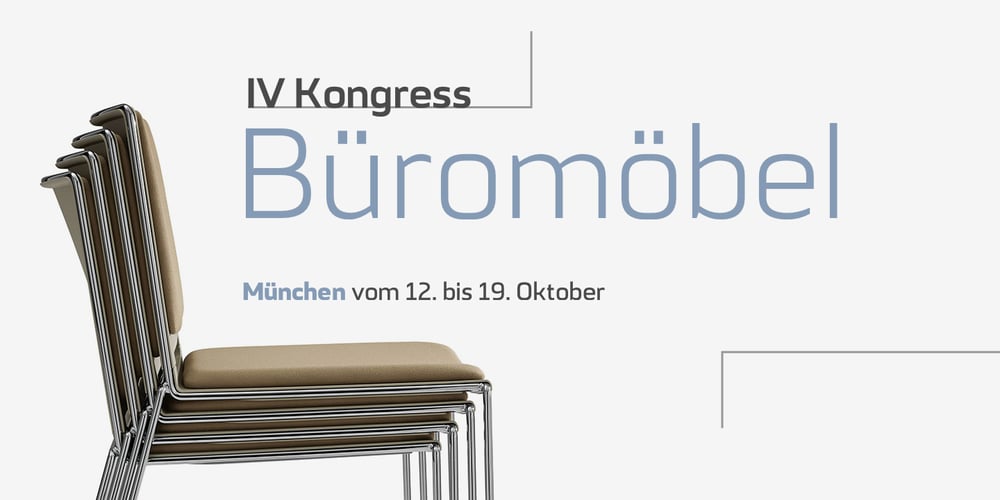
Kongress Font Family was designed by Josep Patau Bellart and published by Tipo Pèpel. Kongress contains 14 styles and family package options. Kongress is a typeface that includes all that is needed for building a proper corporate identity. The design relies on the use of straight lines and a squarish structure for the characters, which provides the text with a compact appearance. This feature helps to save space when required by the typographic composition. The design is also defined by wide counterforms and clean cuts for the strokes. All of this helps the shapes to adapt better to digital environments. Nevertheless, Kongress is not another techno typeface. The slight modulation of the strokes—especially in the italic letterforms—and the large apertures for most characters result in what we will call a techno-humanist style. The squarish structure of a techno-font blends with the calligraphic modulation of a humanist sans serif typeface.